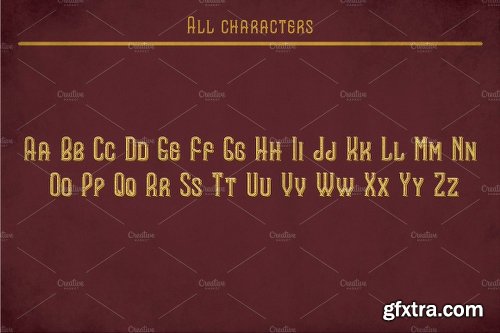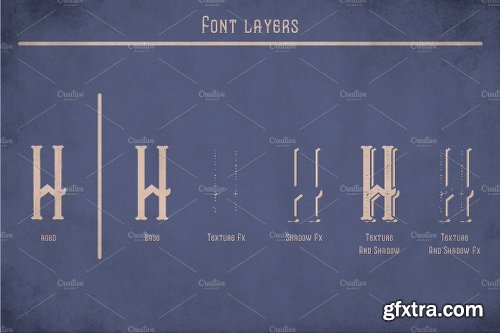
Introducing a original label typeface named "Hot Rod". It's made in fresh and modern label style. Typeface is good viewed on any labels design.
Features:
You can mix effects (look at 4-th screenshot)